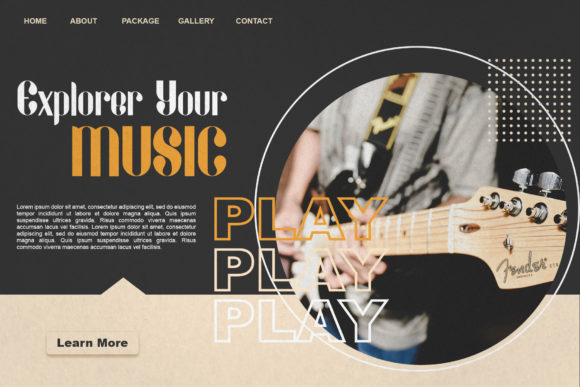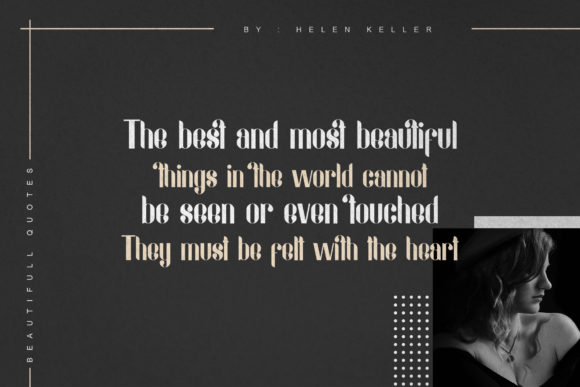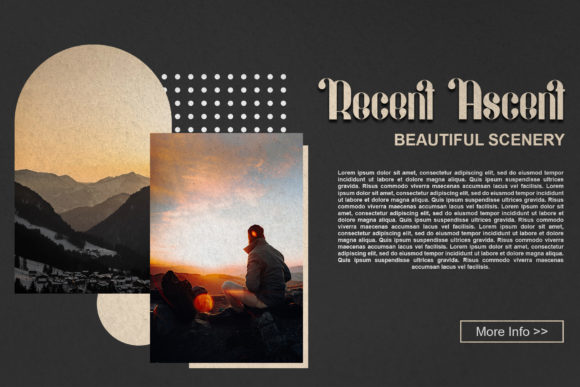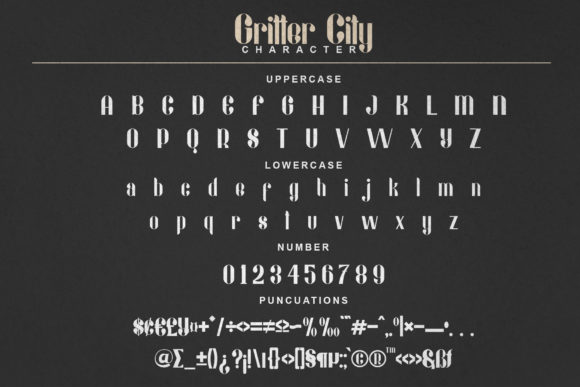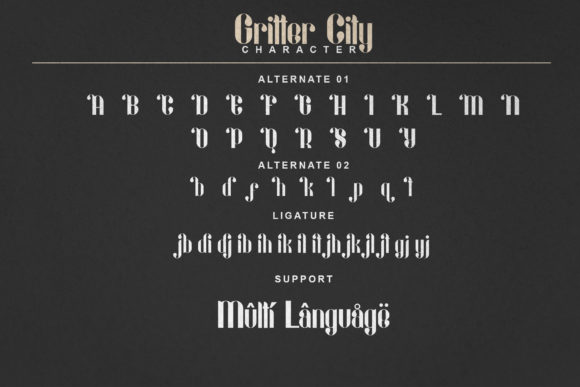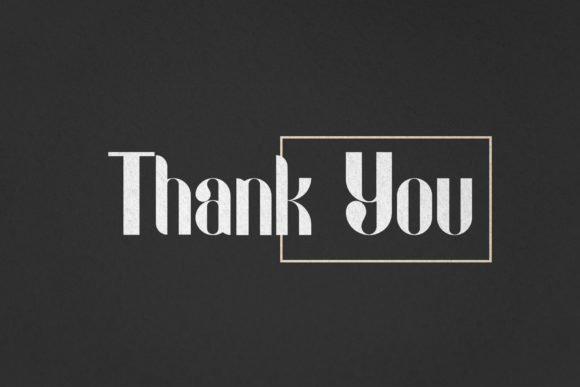
Gritter City Font: Elevate Your Designs with Luxury and Elegance
In the world of typography, a font can make or break a design. For crafters, designers, and anyone looking to add a touch of sophistication to their projects, the Gritter City Font is a game-changer. This bold serif font exudes luxury and majesty, making it perfect for a variety of designs that require a personalized style.
The Characteristics of Gritter City Font
Gritter City is a bold serif font that boasts a luxurious and majestic feel. Its sturdy serifs and elegant lines make it an excellent choice for designs that demand a high level of sophistication. Whether you’re working on wedding invitations, thank you cards, weddings, greeting cards, logos, or any other project that requires a touch of elegance, Gritter City is the perfect fit.
One of the standout features of Gritter City is its versatility. This font can be used on a wide range of designs, from:
- Wedding invitations and thank you cards
- Wedding decorations and signage
- Greeting cards for special occasions
- Stationery and letterheads
Gritter City Font is PUA (Private Use Area) encoded, which means that accessing all the glyphs and swashes is a breeze. PUA encoding allows designers to access a wide range of special characters, ligatures, and swashes, making it easy to add a personal touch to your designs. With Gritter City, you can easily access:
- Alternate characters and ligatures
- Swashes and flourishes
- Special glyphs and ornaments
Why Choose Gritter City Font?
So, why should you choose Gritter City Font for your next project? Here are just a few reasons:
- Luxurious and majestic feel: Gritter City exudes elegance and sophistication, making it perfect for high-end designs.
- Versatility: This font can be used on a wide range of designs, from wedding invitations to logos and branding materials.
- Easy to use: With PUA encoding, accessing glyphs and swashes is easy, even for those without extensive design experience.
- High-quality design: Gritter City is designed with precision and attention to detail, ensuring that your designs look professional and polished.
Tips for Using Gritter City Font
To get the most out of Gritter City Font, here are a few tips:
- Pair it with a sans-serif font: For a striking contrast, pair Gritter City with a clean sans-serif font for body text.
- Experiment with swashes and glyphs: Don’t be afraid to get creative with the swashes and glyphs available in Gritter City.
- Use it for headlines and titles: Gritter City is perfect for headlines and titles, where its bold and luxurious feel can shine.